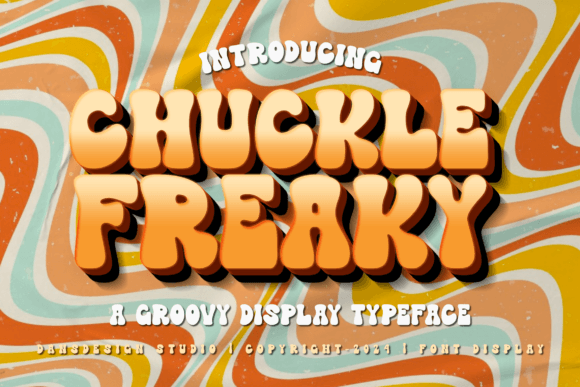
Unleashing the Retro Charm of Chuckle Freaky Font: A Fun and Funky Character from the Y2K Era
Remember the vibrant and eclectic style of the Y2K era? The time when graffiti art, street fashion, and retro technology merged to create a unique cultural phenomenon. In this era of bold fashion statements and experimental art, characters like Chuckle Freaky were born. Chuckle Freaky is a fun, funky character that embodies the playful and slightly weird vibe of the early 2000s. This character is styled in bright, eye-catching graffiti designs, bringing together bold colors, wavy lines, and a bit of retro 2000s flair.
Who is Chuckle Freaky?
Chuckle Freaky is more than just a character; it’s a representation of the Y2K era’s carefree and creative spirit. Imagine a mix of cartoonish street art and wild, groovy energy – that’s Chuckle Freaky in a nutshell. This character is all about embracing fun, self-expression, and a bit of quirkiness. With its roots in graffiti and street art, Chuckle Freaky is a visual treat that captures the essence of urban creativity and the joy of being different.
The Visual Style of Chuckle Freaky
The visual style of Chuckle Freaky is a key element that sets it apart. Characterized by bright colors, wavy lines, and bold shapes, Chuckle Freaky’s design is a feast for the eyes. The character’s graffiti-inspired look is reminiscent of street art from the early 2000s, with a playful twist that makes it instantly recognizable. The use of vibrant colors and dynamic lines creates a sense of movement and energy, drawing viewers in and making them want to engage with the character.
Color Scheme
The color scheme of Chuckle Freaky is bold and vibrant, featuring a mix of neon colors, pastels, and bold primary colors. The palette is eclectic and playful, reflecting the character’s fun and carefree personality. The use of bright colors is not just for aesthetic appeal; it also symbolizes the character’s lively and energetic vibe.
Typography and Font Style
When it comes to typography, Chuckle Freaky does not disappoint. The character’s font style is a crucial element of its overall design, adding to its playful and quirky appeal. The Chuckle Freaky Font is a fun and funky typeface that mirrors the character’s graffiti-inspired look. With its bold lines, irregular shapes, and vibrant colors, the font is perfect for designs that require a touch of retro charm and youthful energy.
Key Features of the Chuckle Freaky Font
- Bold and Playful Design: The Chuckle Freaky Font is designed to make a statement. Its bold lines and playful shapes make it perfect for headlines, posters, and any design that needs to stand out.
- Retro 2000s Flair: The font’s design is heavily influenced by the graphics and typography of the early 2000s, making it a great choice for projects that require a retro vibe.
- Versatility: Despite its bold and playful nature, the Chuckle Freaky Font is surprisingly versatile. It can be used in a variety of design contexts, from digital media to print materials.
- Easy to Read: While the font is bold and stylized, it remains easy to read, making it practical for use in both short and long-form content.
Uses and Applications of the Chuckle Freaky Font
The Chuckle Freaky Font is not just a novelty; it has a range of practical applications in design. Its unique style makes it suitable for projects that require a playful and energetic feel. Here are some popular uses of the Chuckle Freaky Font:
Design Projects
- Posters and Flyers: The bold and playful design of the Chuckle Freaky Font makes it perfect for posters and flyers, especially for events, promotions, or announcements that need to grab attention.
- Digital Media: In digital media, such as social media graphics, website headers, and email newsletters, the Chuckle Freaky Font can add a fun and engaging touch.
- Merchandise: The font’s unique style makes it a great choice for merchandise like t-shirts, stickers, and bags, where a quirky and eye-catching design is desired.
- Branding: For brands that want to convey a playful and youthful image, the Chuckle Freaky Font can be a great addition to their branding materials.
Inspiration and Cultural Impact
Chuckle Freaky and its associated font draw inspiration from the Y2K era, a time of significant cultural and technological change. The early 2000s were marked by a fusion of street art, music, and fashion, which influenced the character’s design. The Y2K aesthetic, with its bright colors, bold graphics, and playful vibe, has seen a resurgence in recent years, with many designers and artists revisiting the era for inspiration.
The Nostalgia Factor
For those who grew up in the Y2K era, Chuckle Freaky and its font may evoke a sense of nostalgia. The character and its design elements remind people of a time when the internet was still in its early stages, and social media was beginning to shape the way people interacted. This nostalgia factor can be a powerful tool in design, allowing creators to tap into fond memories and emotions.
Chuckle Freaky is more than just a character – it’s a symbol of the playful, creative spirit of the Y2K era. With its bold colors, wavy lines, and quirky vibe, Chuckle Freaky captures the essence of a time when street art, graffiti, and retro technology merged to create something unique. The Chuckle Freaky Font, with its fun and funky design, is a great way to bring a touch of this retro charm into modern designs. Whether you’re working on a poster, digital media, or merchandise, this font is sure to add a playful and energetic feel to your project.